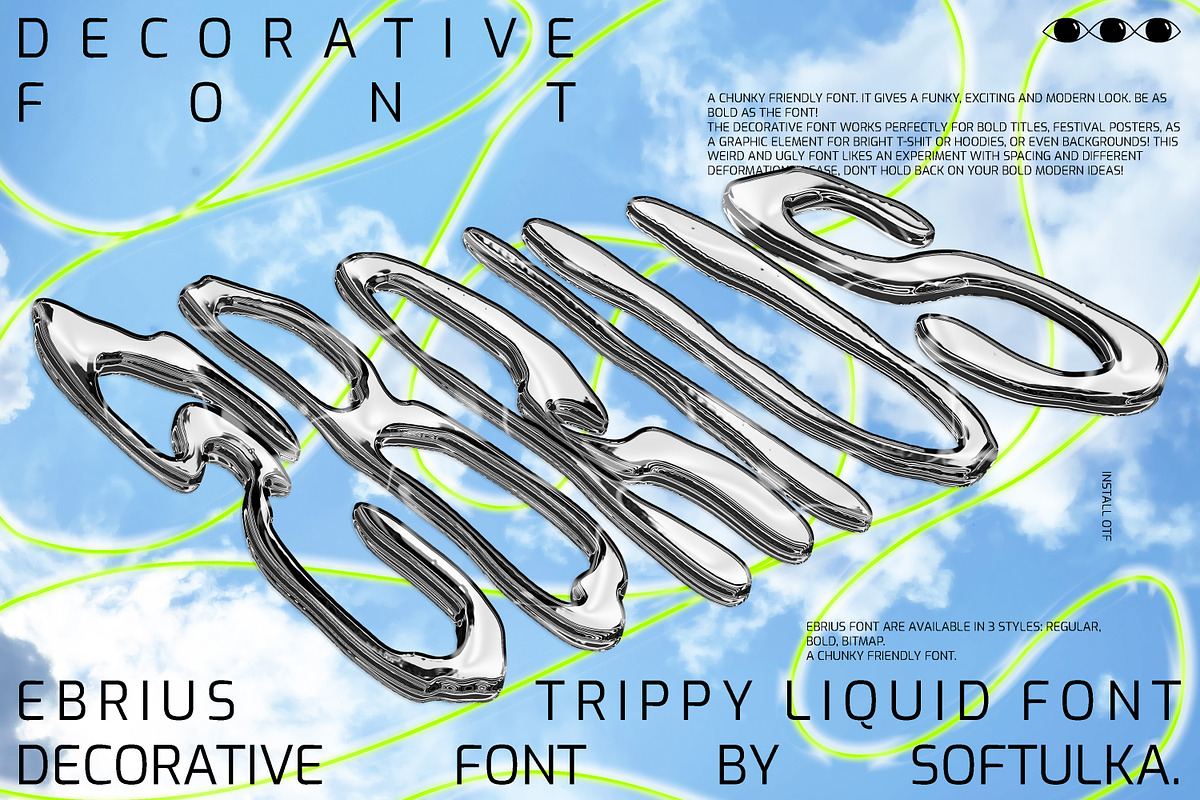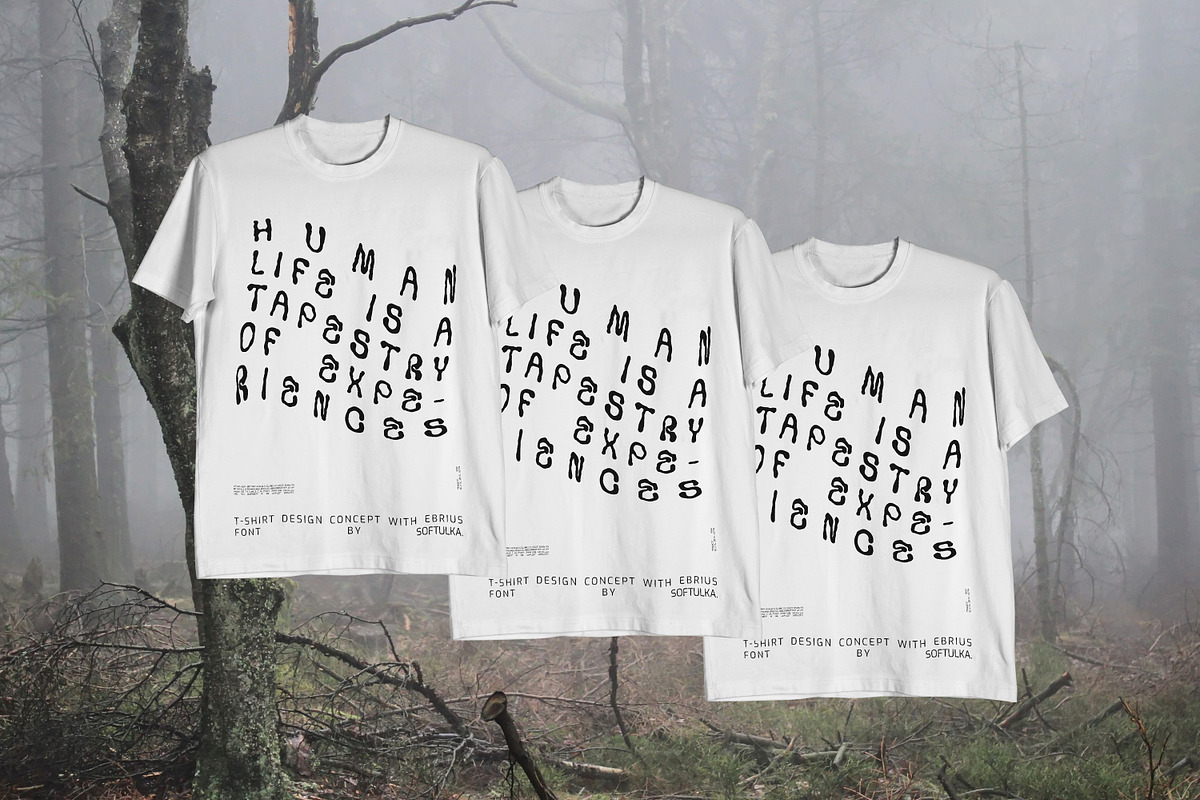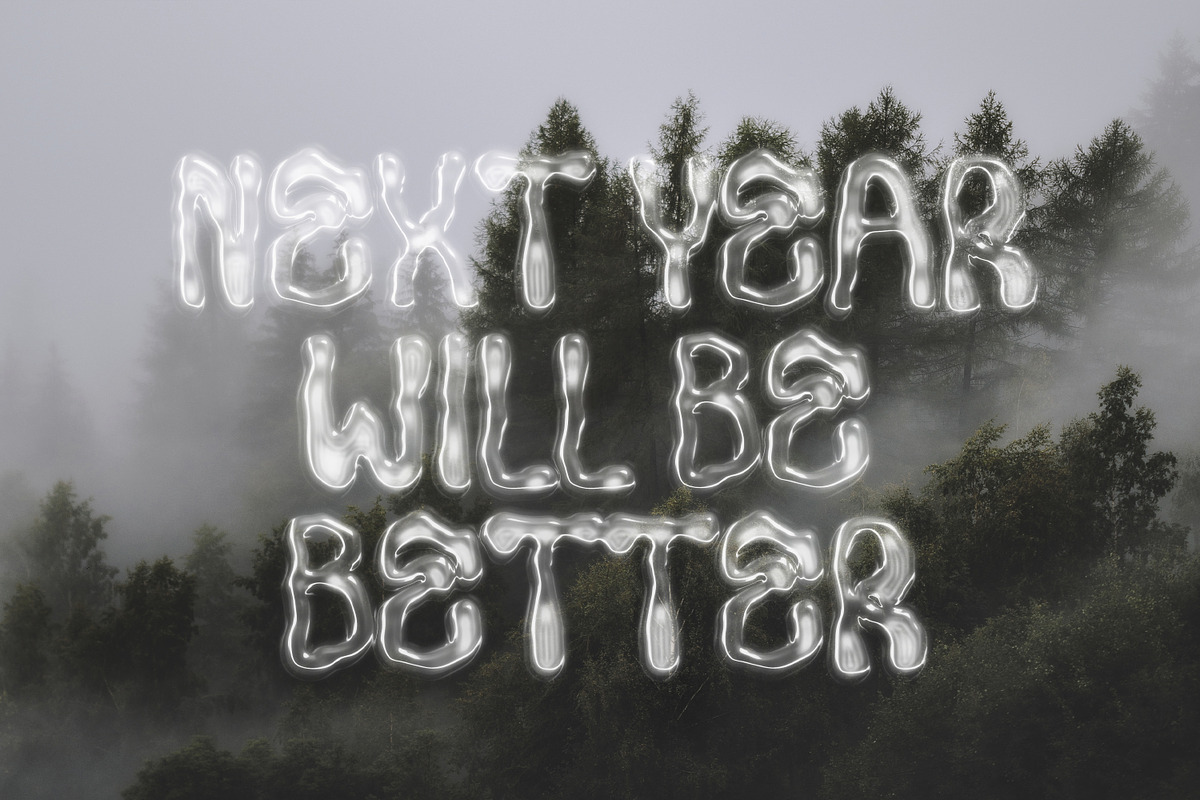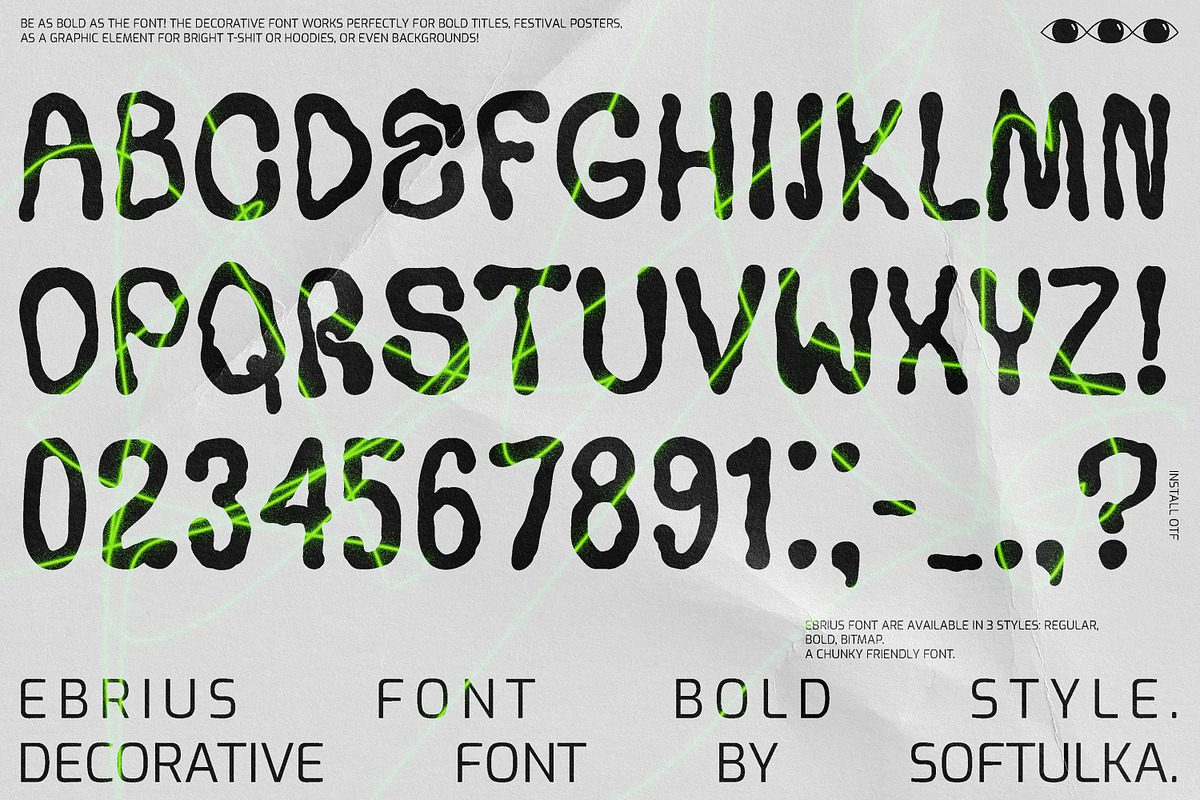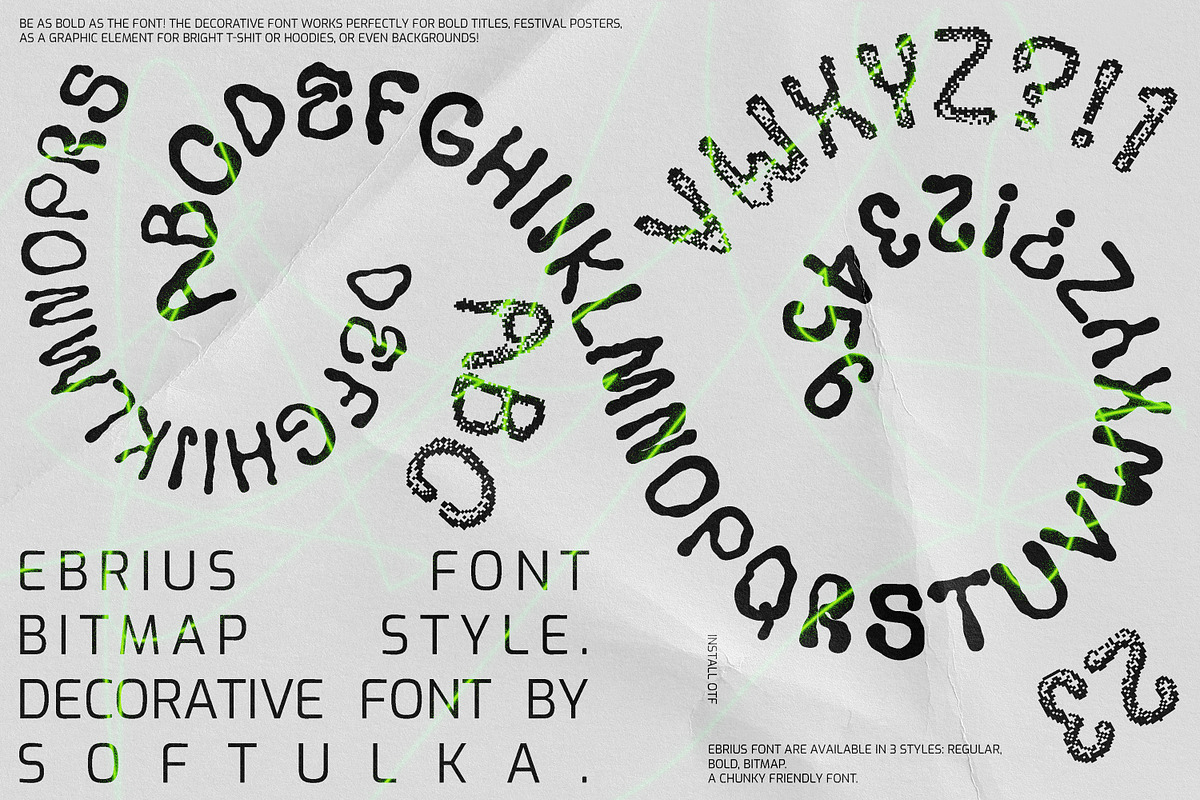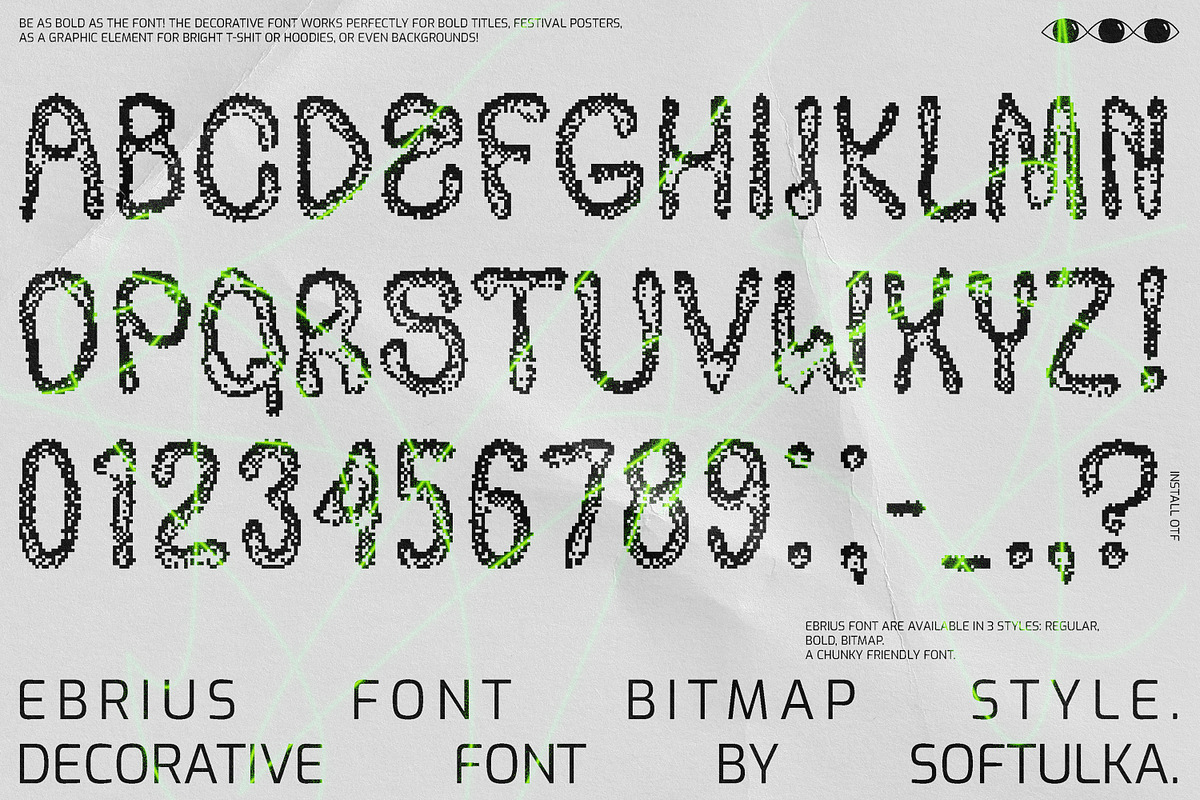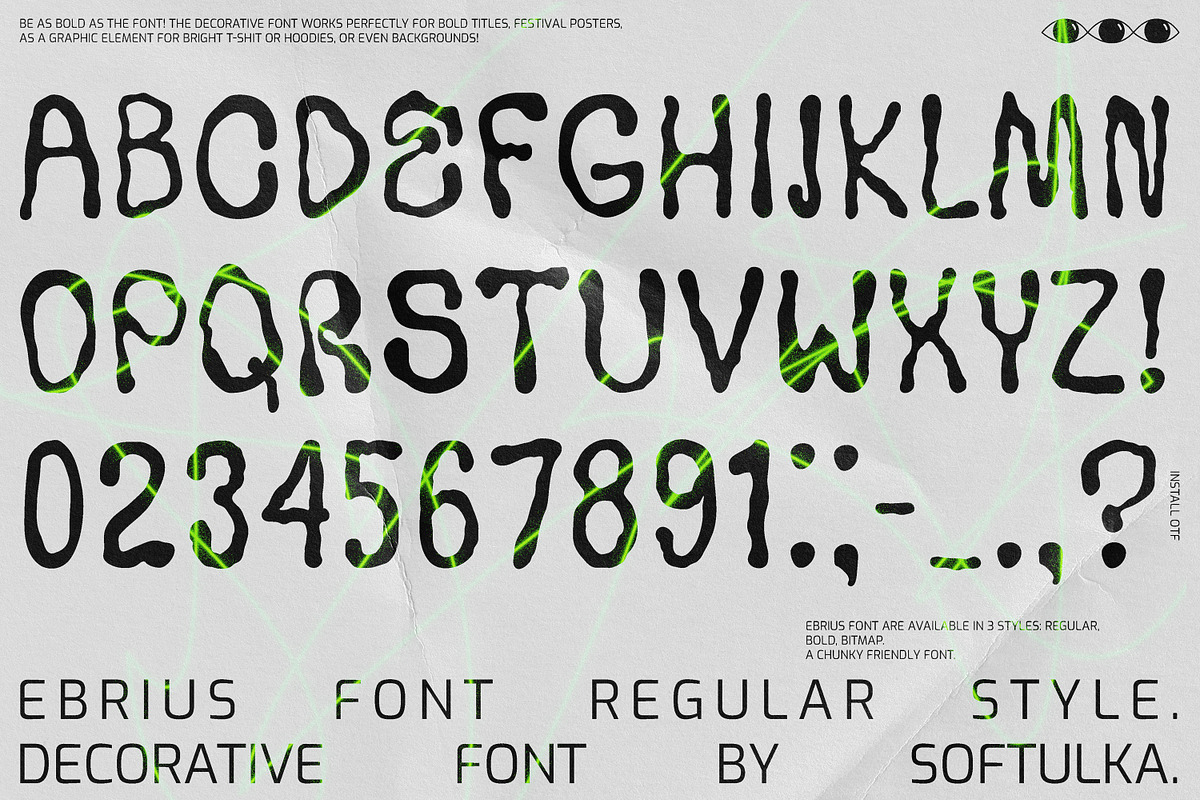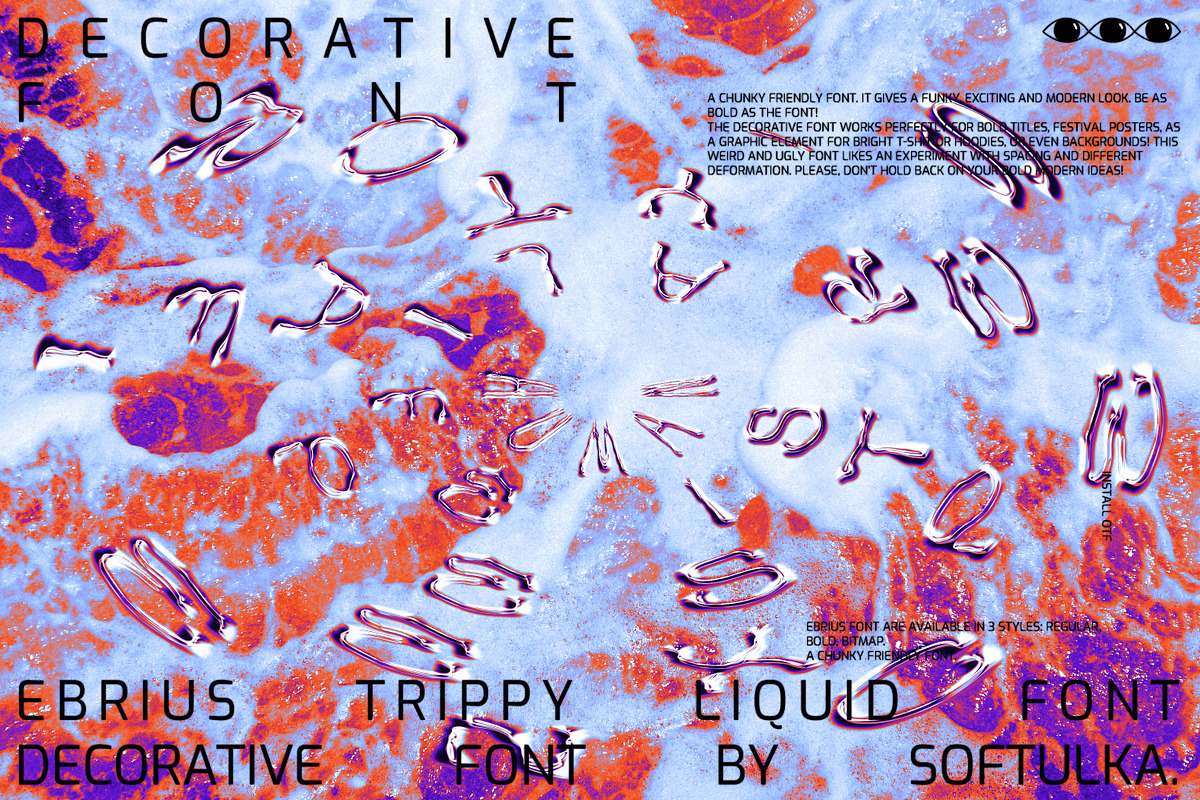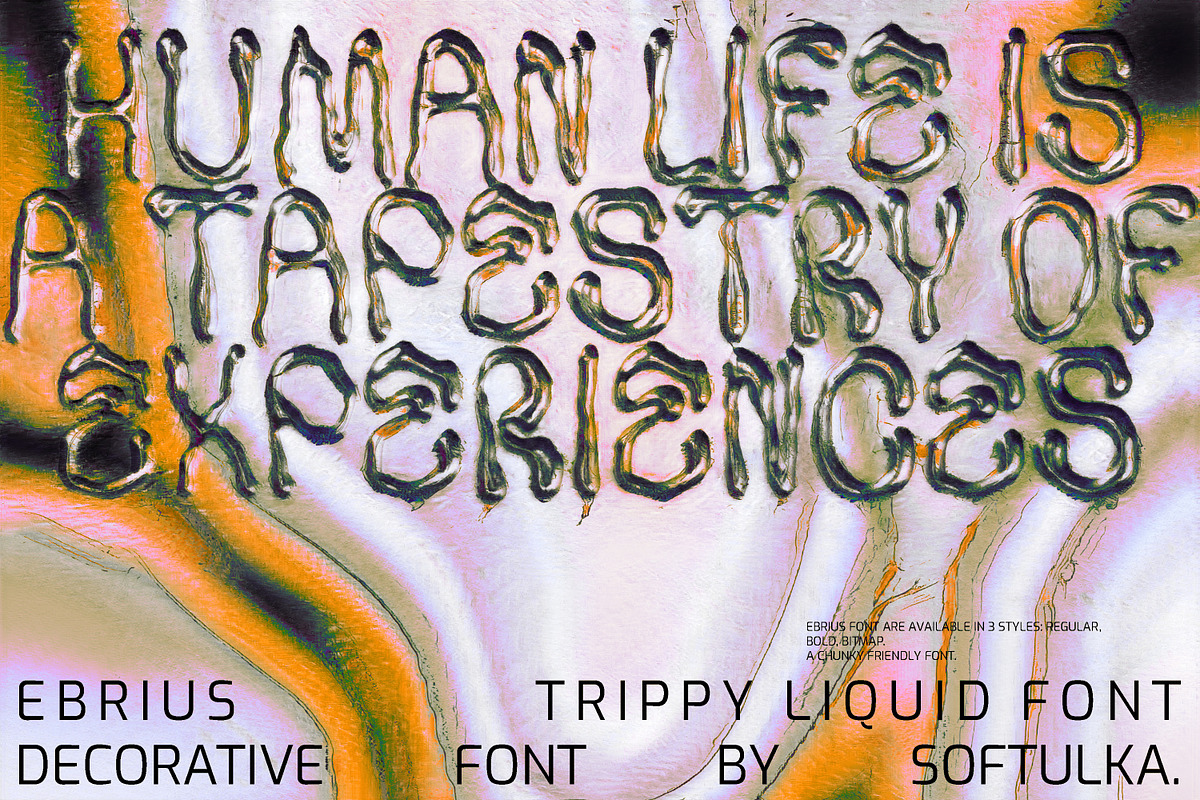
Ebrius Font - Trippy, Bitmap Font
Ebrius font - Trippy wavy liquid decorative font also has a really awesome Bitmap Style (with vector dither texture), which works perfectly for trendy projects in Y2k style, bold titles, Festival posters, as a graphic element for bright T-shit or hoodies, or even backgrounds! This weird and ugly font likes an experiment with spacing and different deformation. Please, don't hold back on your bold modern ideas!